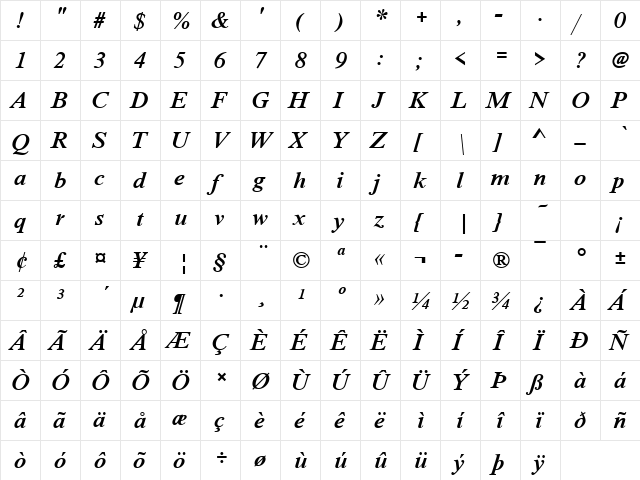
Nimbus Roman Becker No9TMed Italic
Design Context for Nimbus Roman Becker No9TMed Typeface
Nimbus Roman Becker No9TMed is a composed and adaptable typeface that performs quietly and consistently across a wide range of design contexts. The dynamic lean of this cut emphasises speed and emphasis in any layout.
Pro Tip: Try Nimbus Roman Becker No9TMed for annotation and caption copy alongside an upright companion — the contrast in angle creates a dynamic but ordered typographic system.